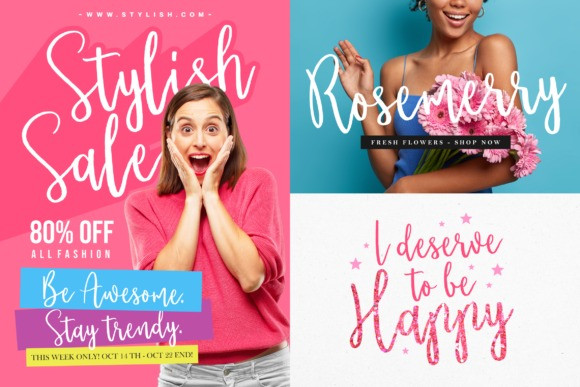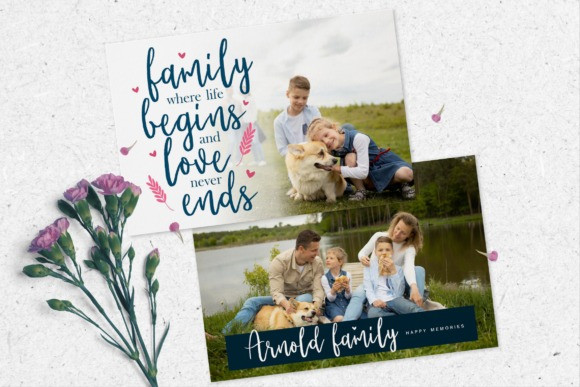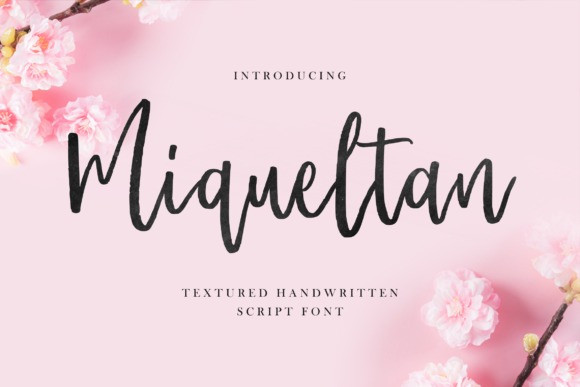
Miqueltan Font
Miqueltan Script Font is an equally sophisticated and bold handwritten font that’s great for delivering any message with confidence, authenticity and charm. It will elevate a wide range of crafting ideas, from cards, to branding, labels and much more.